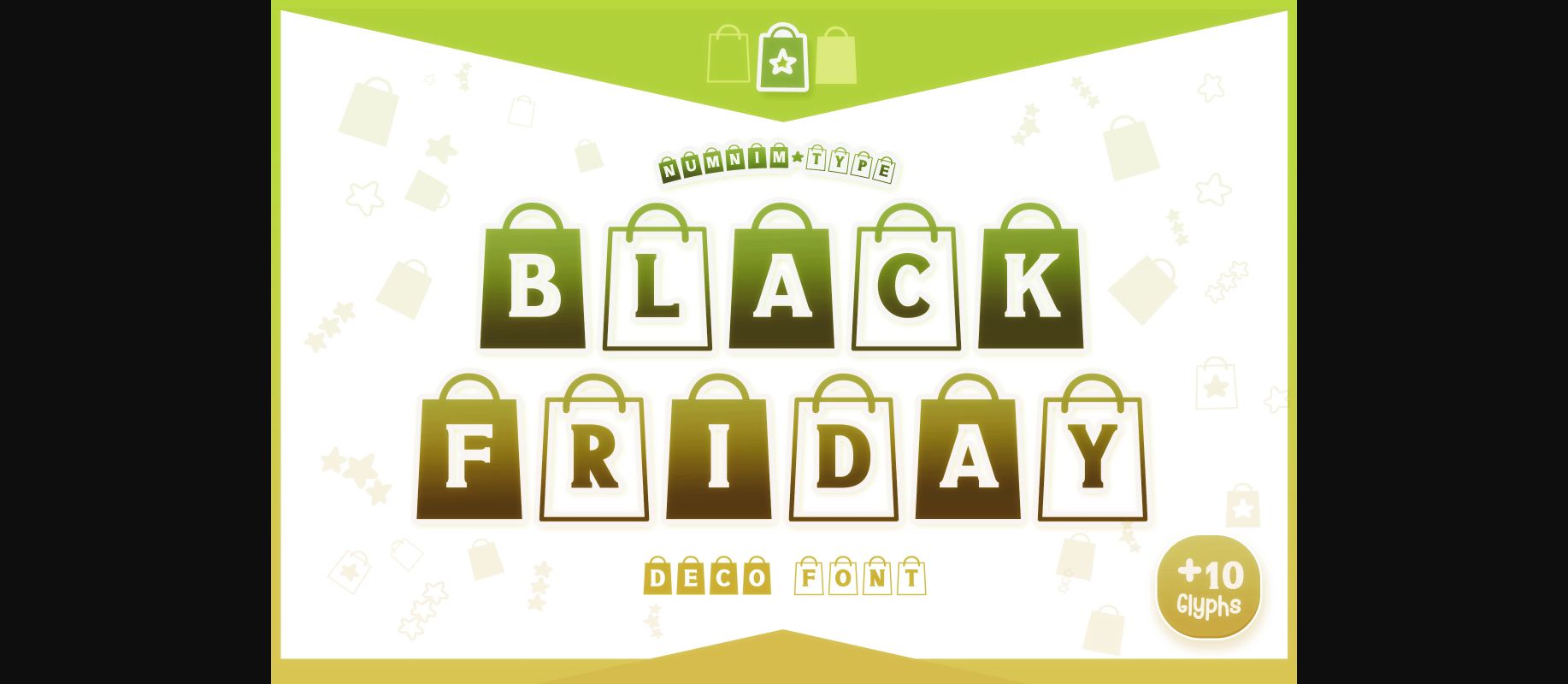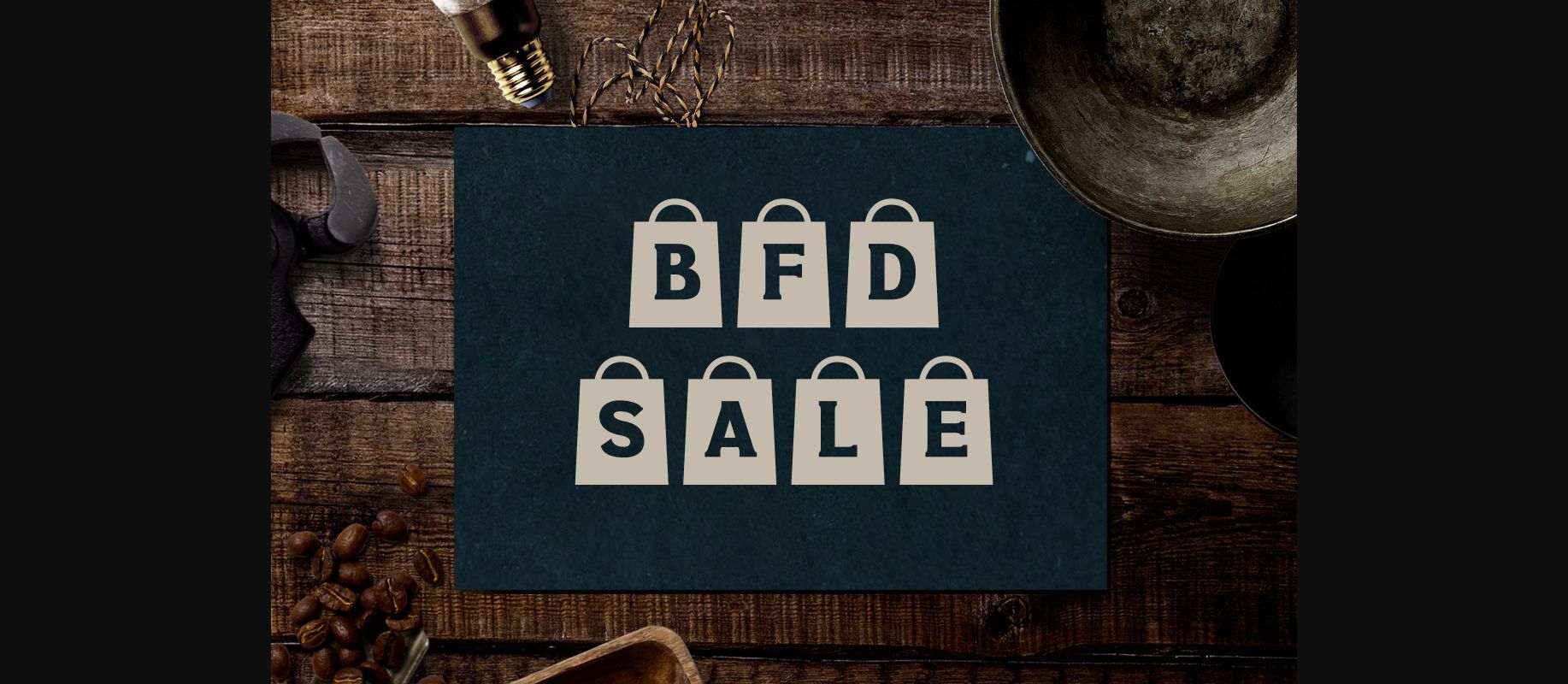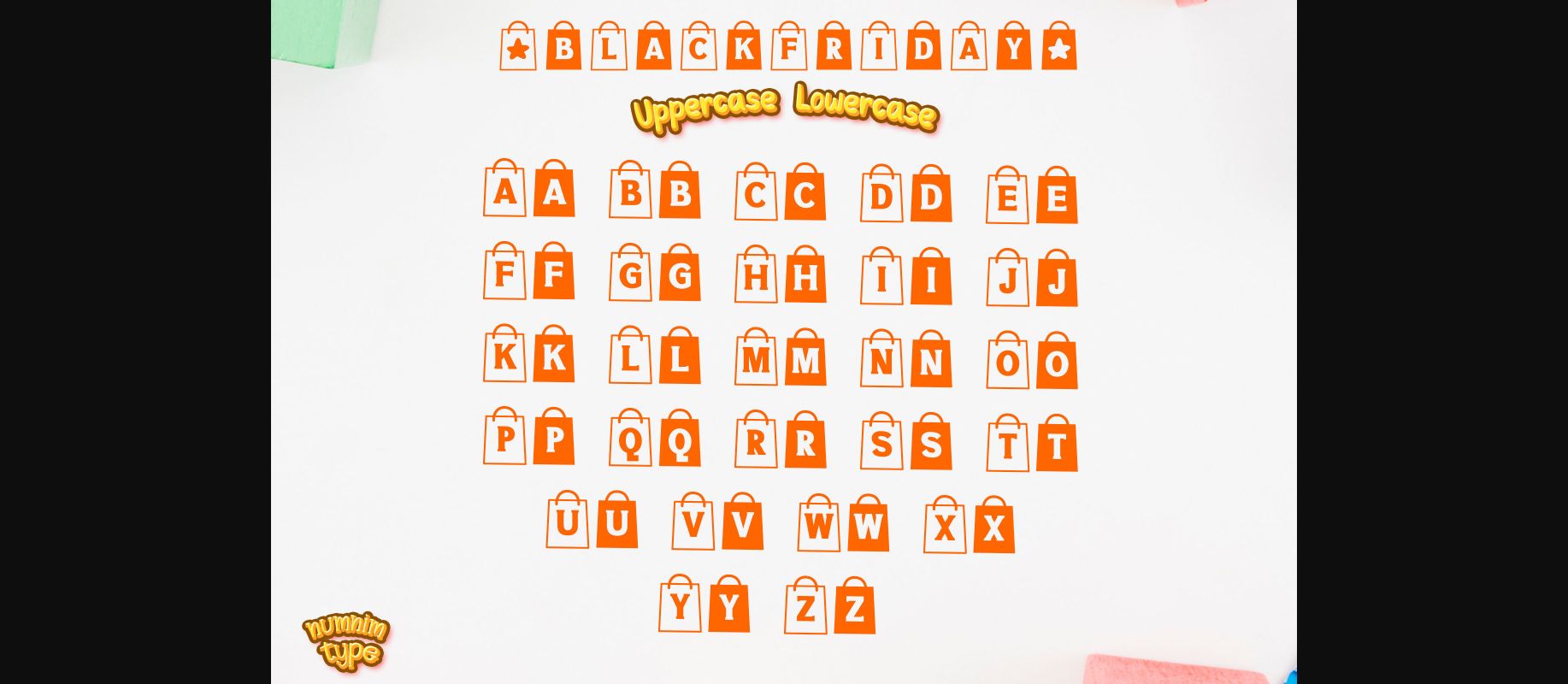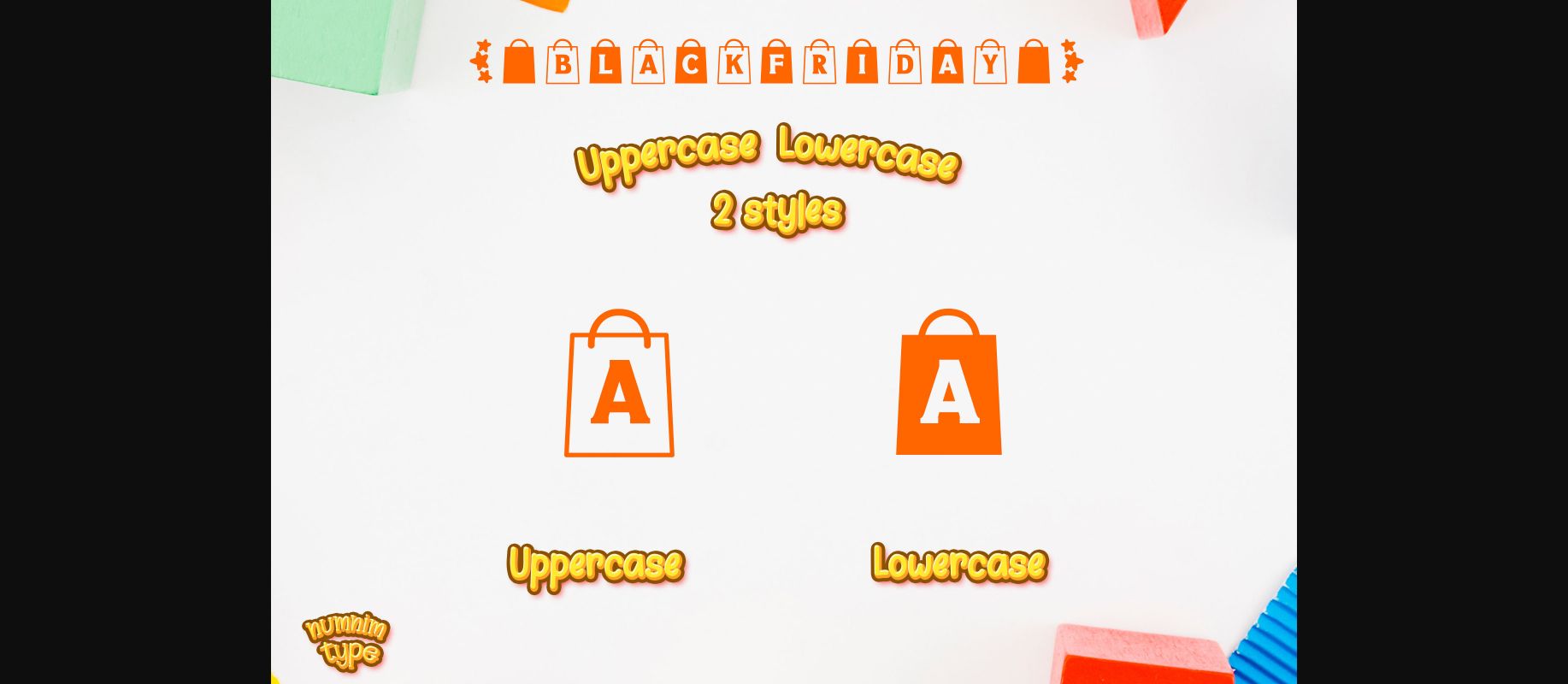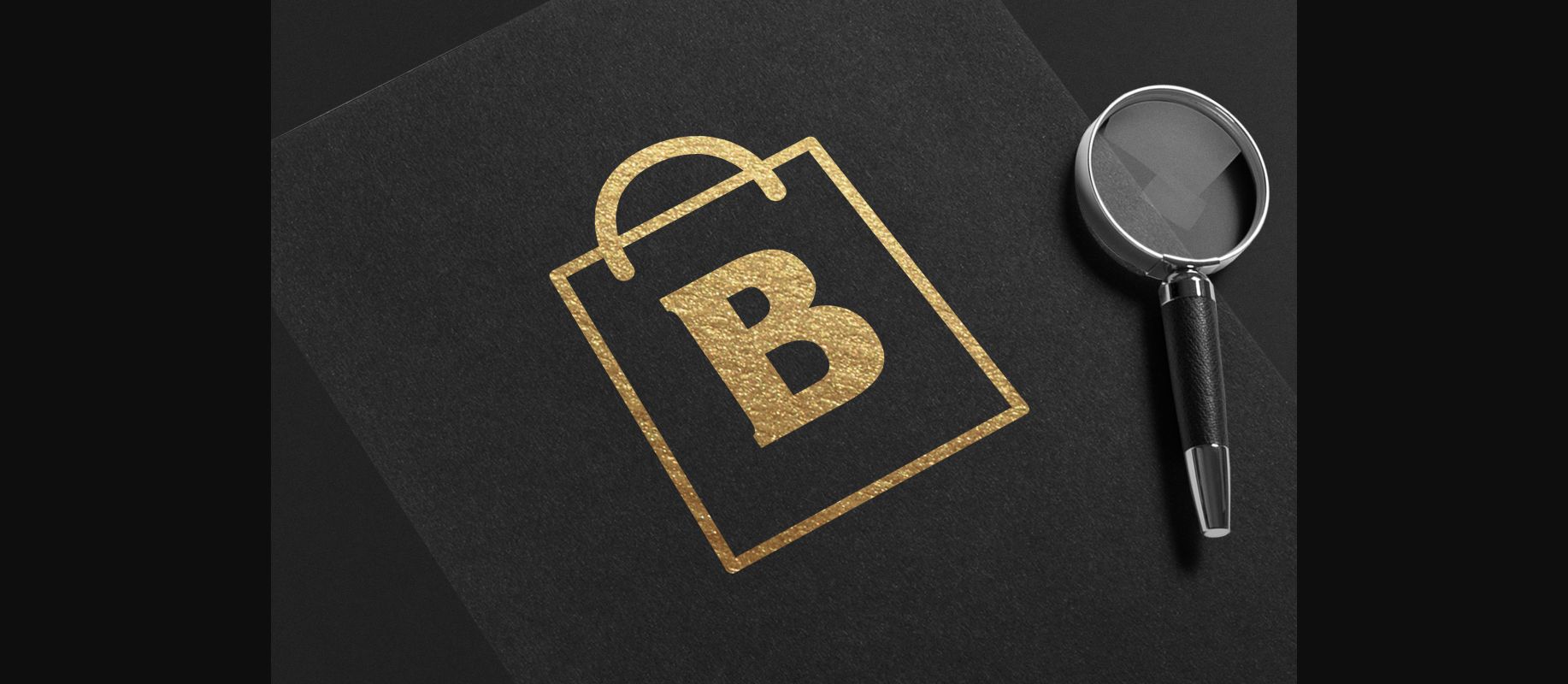
Black Friday Font
About Black Friday Font
Black Friday is a cool and uniquely designed decorative font, created particularly for Black Friday. The characters are fun and playful, perfect for adding a bold accent to your designs!